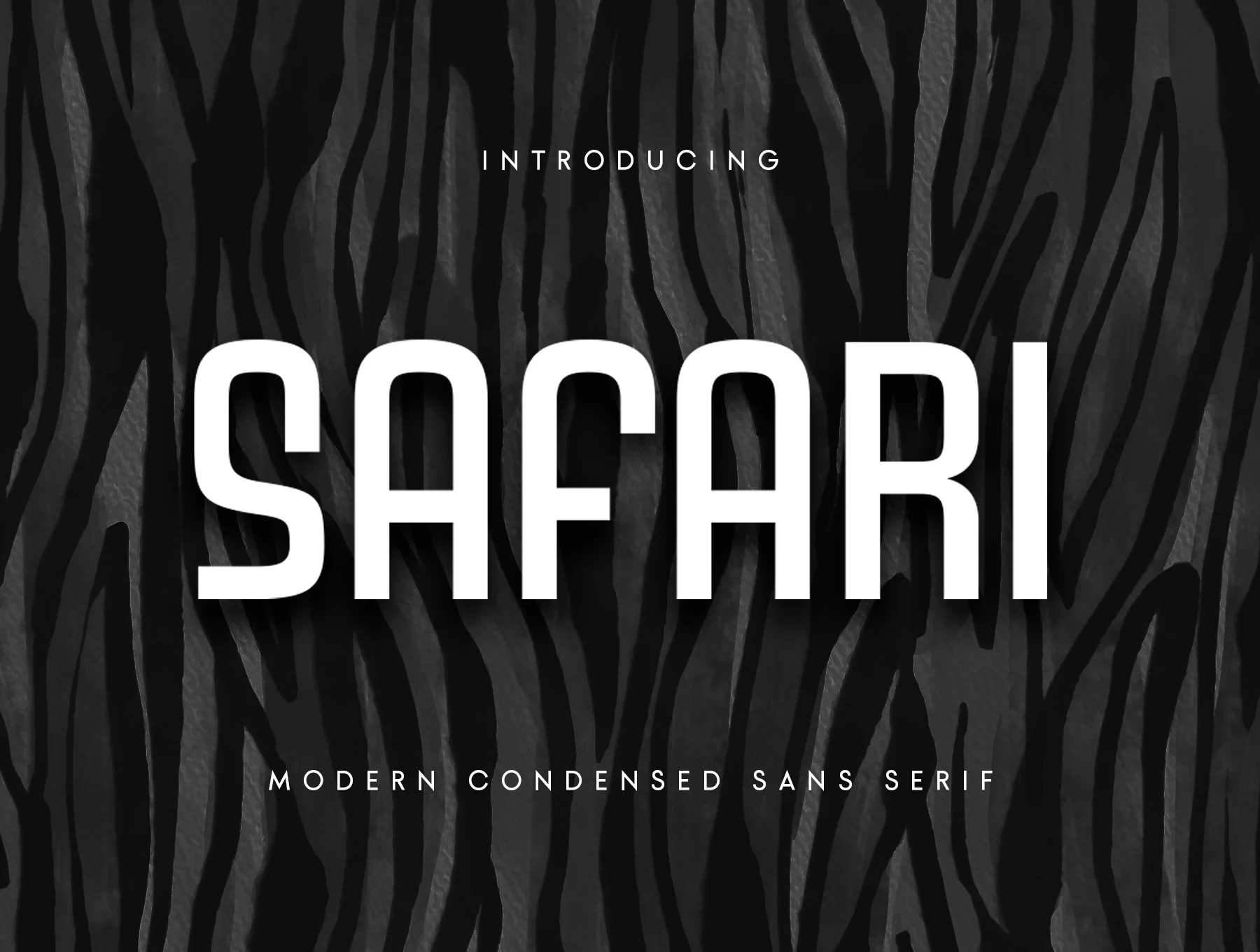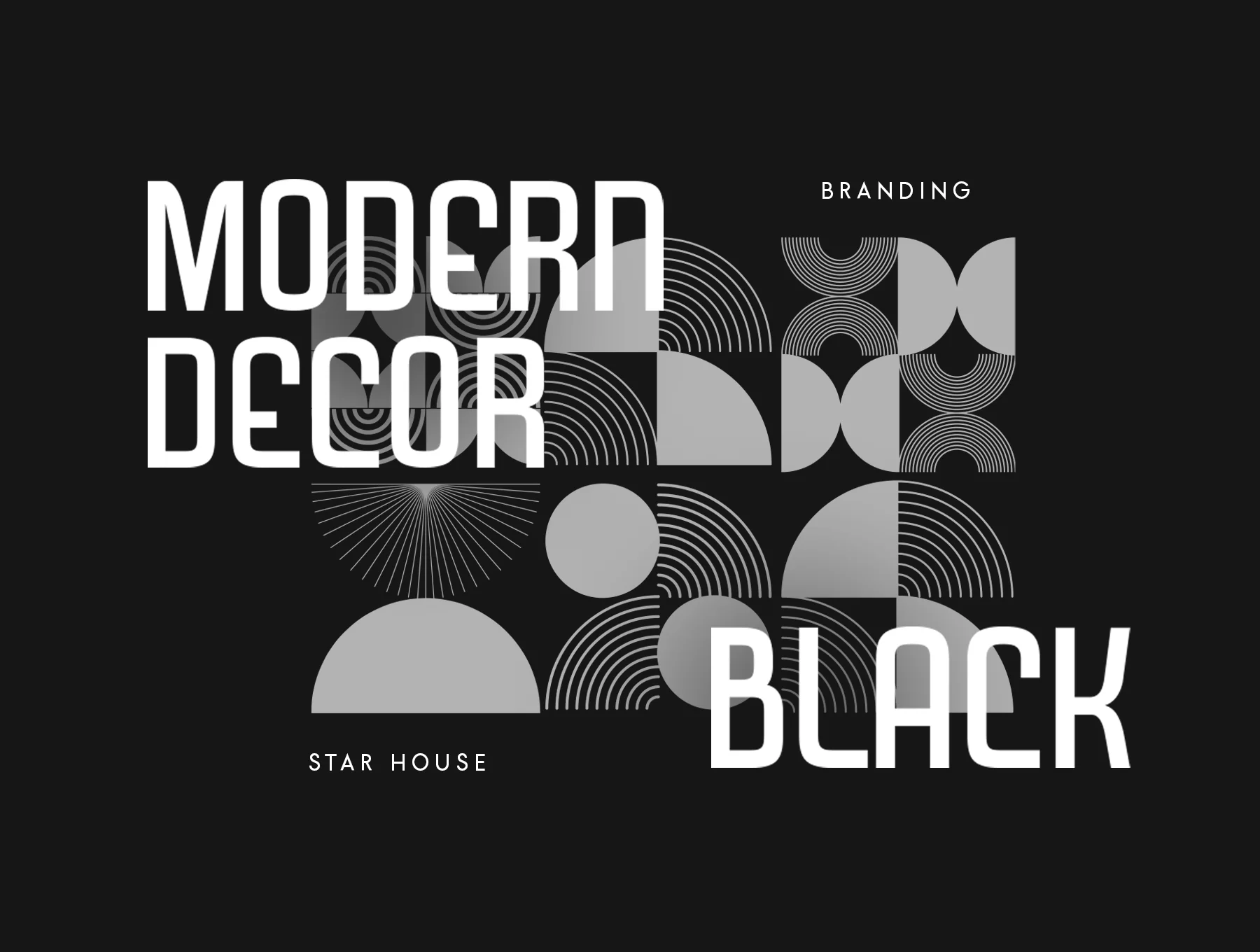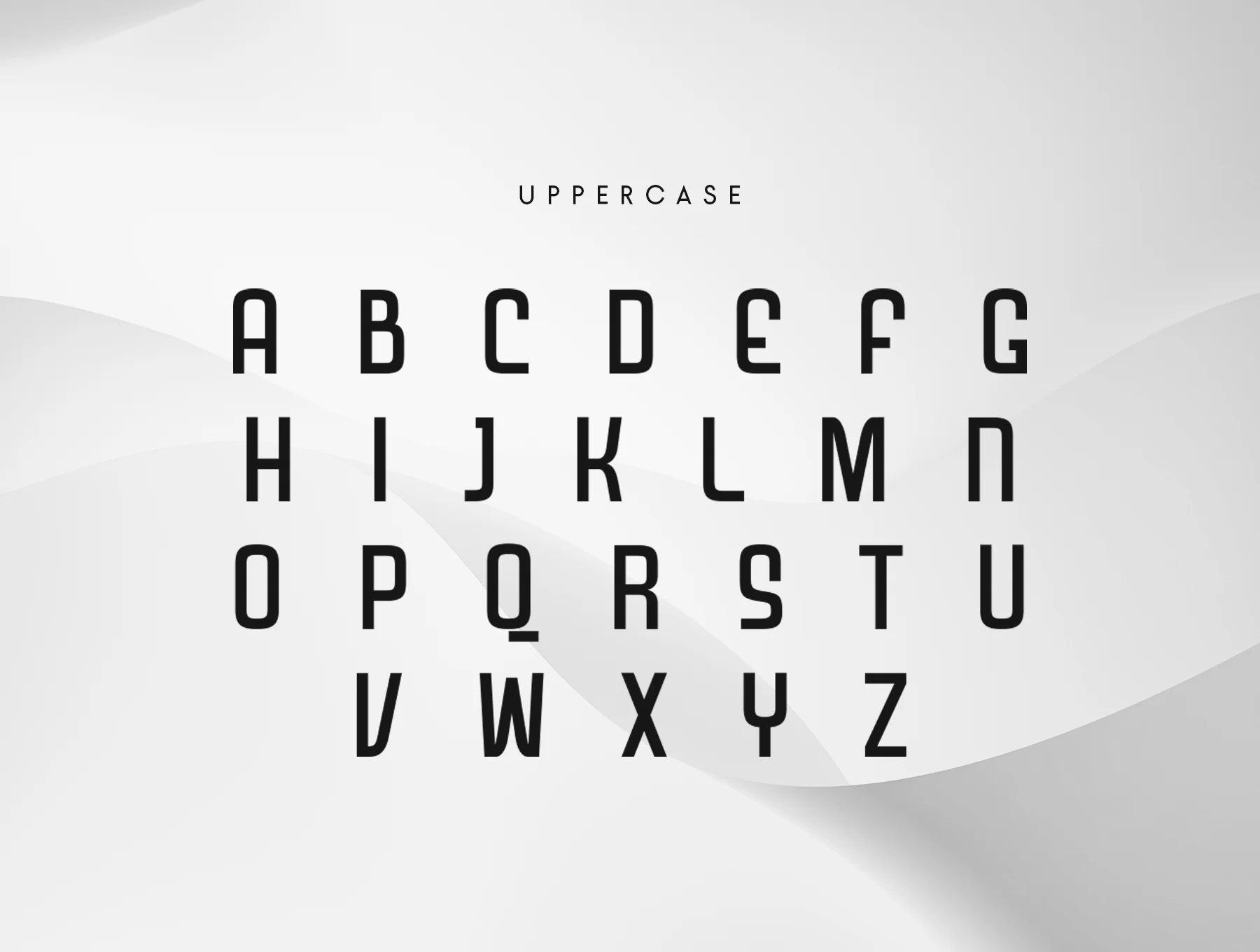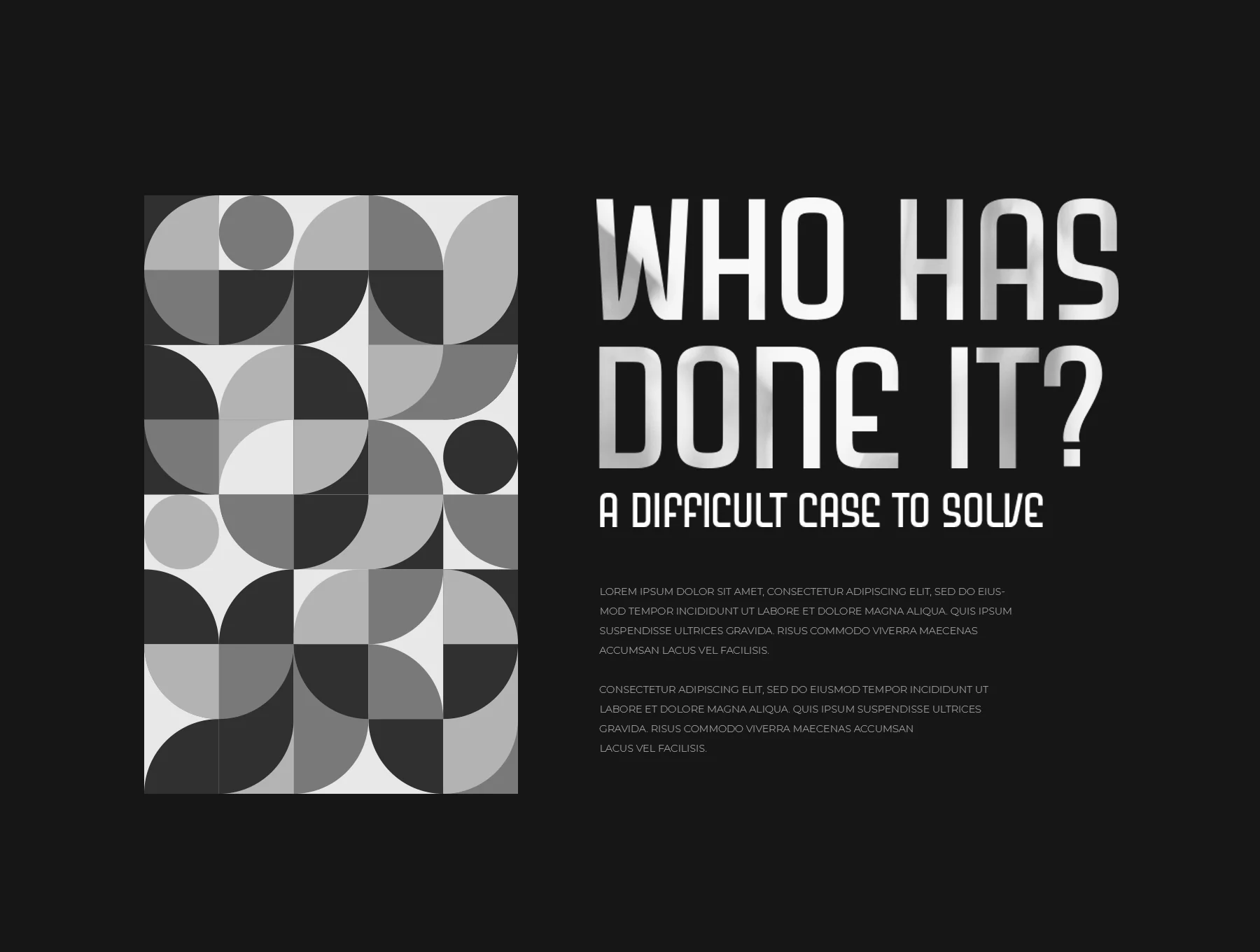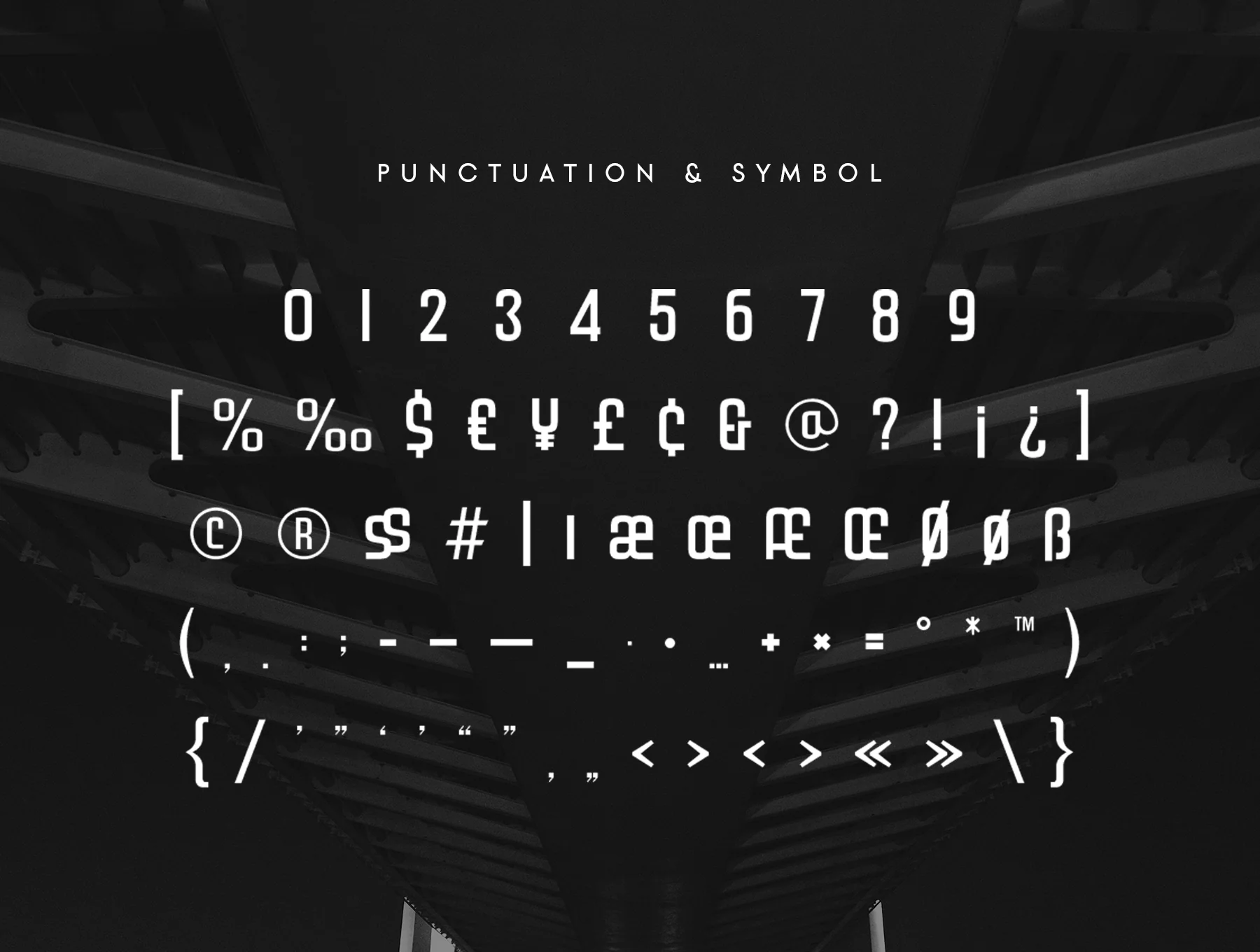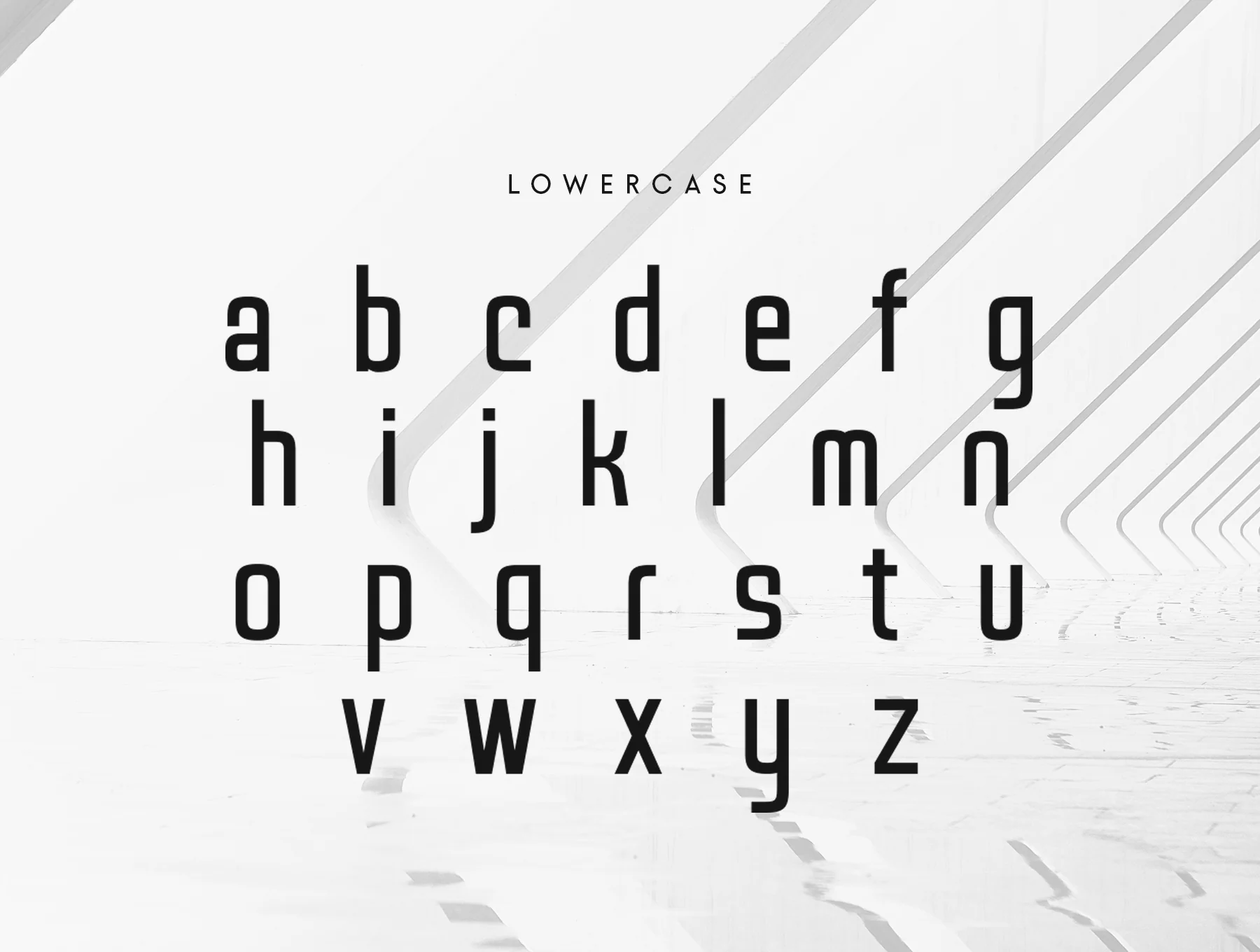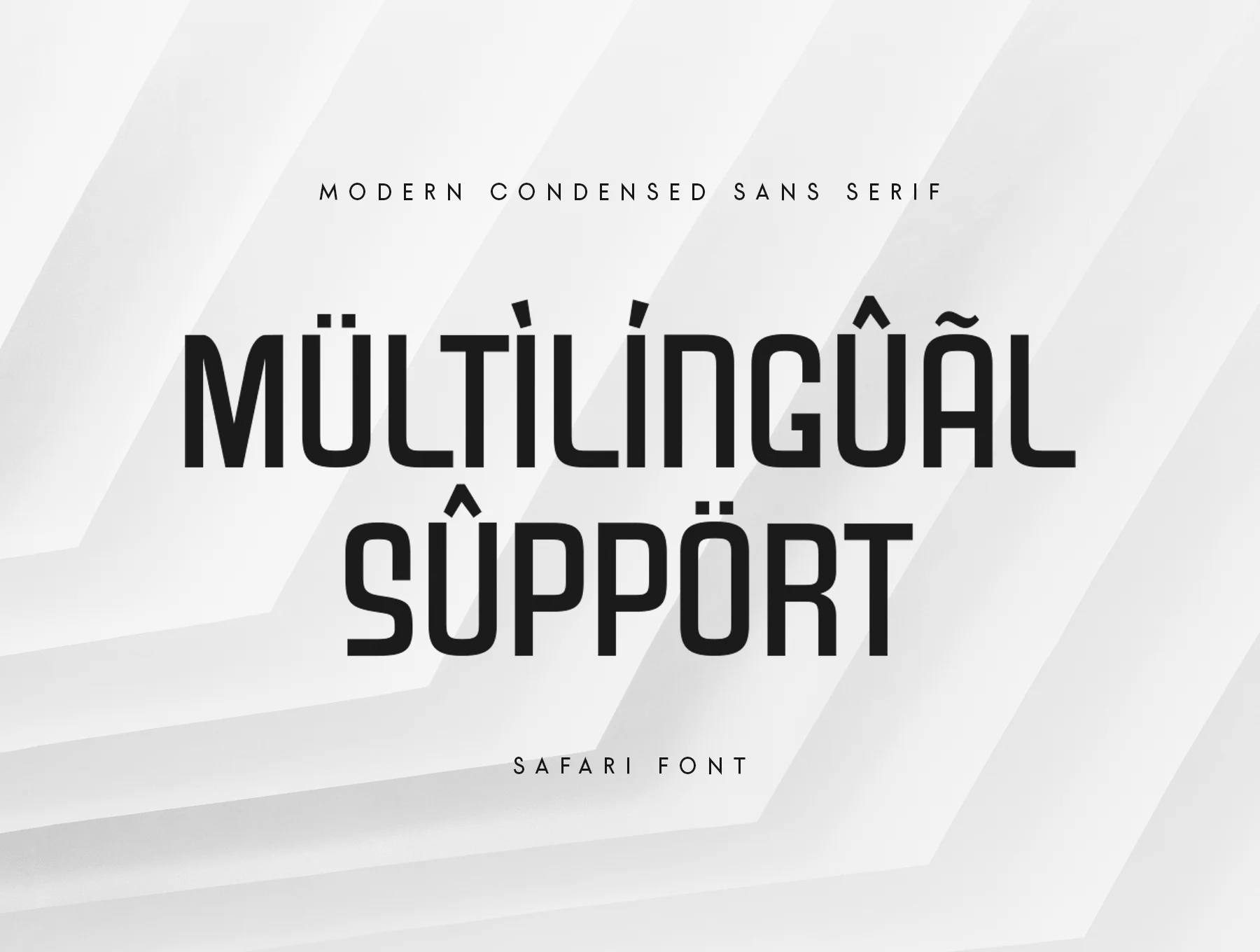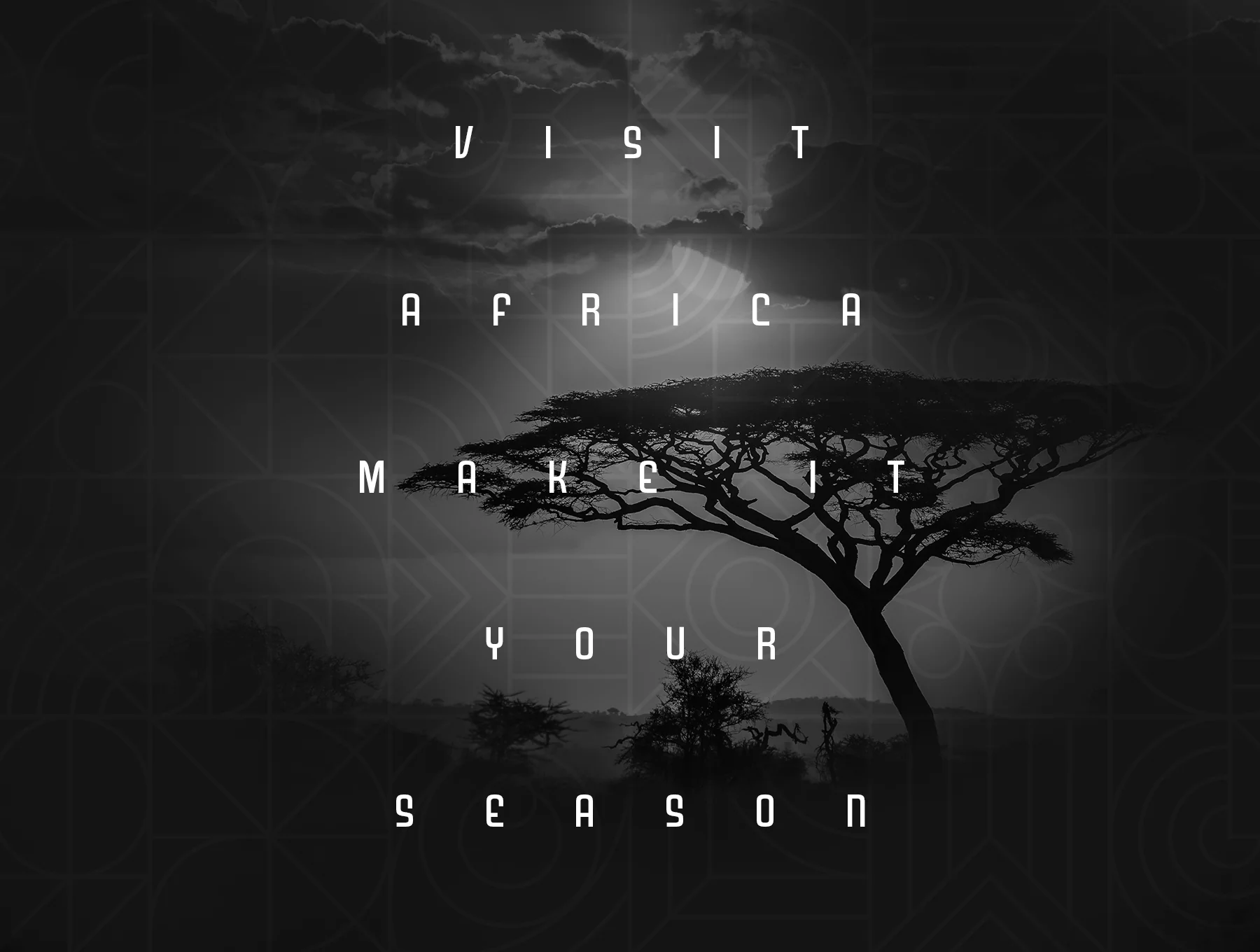
Safari Font
Safari - Contemporary Condensed Sans Serif
Safari is a contemporary condensed sans serif typeface designed for headlines, titles, and striking typographic work. Built to give your designs a distinctive, modern look, it helps emphasize key ideas and adds a stylish presence to creative projects.